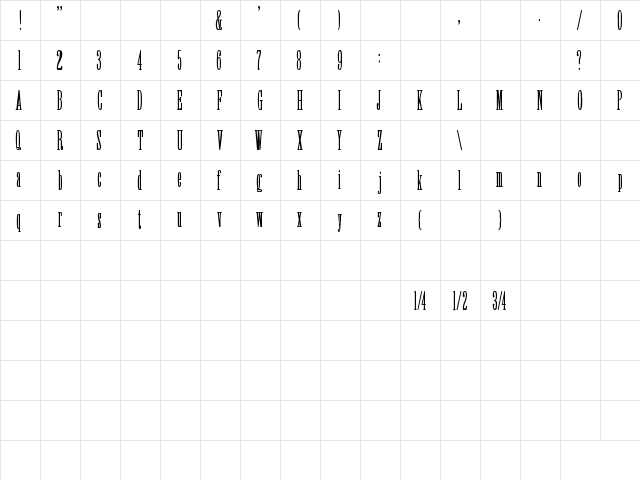
Greer Regular
Design Context for Greer Typeface
Greer is a composed and adaptable typeface that performs quietly and consistently across a wide range of design contexts.